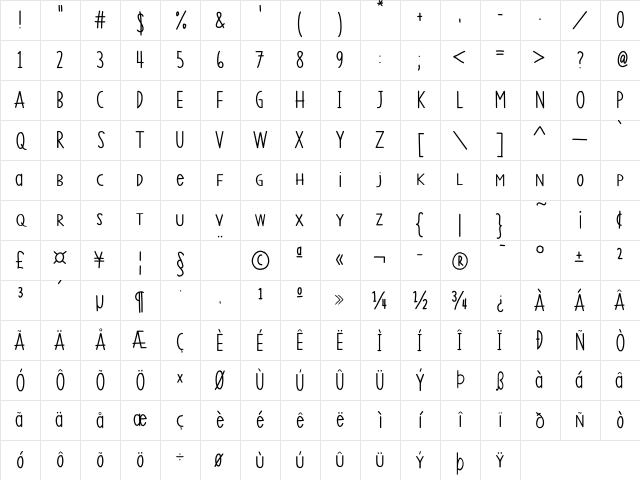
SS Vanilla Gelato Regular
Designer: Sabrina Schleiger
Design Context for SS Vanilla Gelato
SS Vanilla Gelato is a composed and adaptable typeface that performs quietly and consistently across a wide range of design contexts.